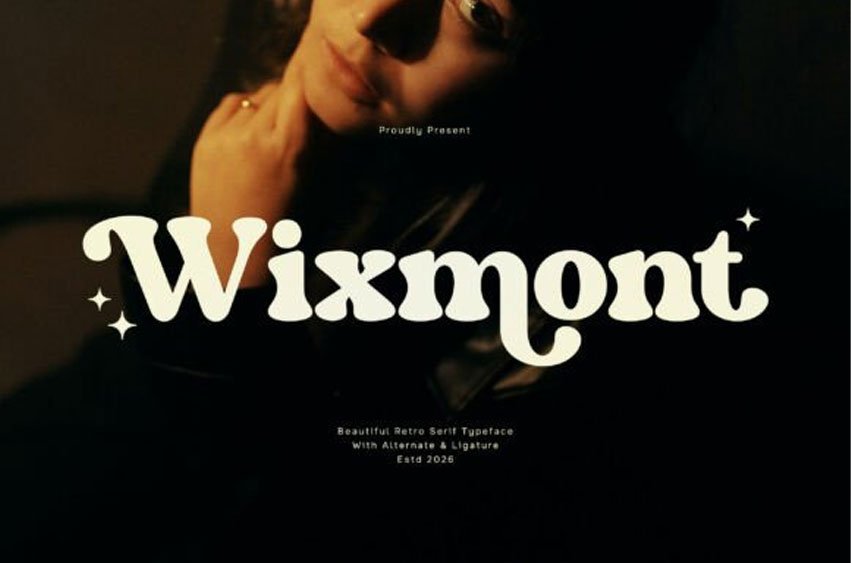
Wixmont Font is a beautiful retro serif font designed to capture the charm of vintage typography with a refined and stylish touch. Featuring distinctive serif details, smooth curves, and balanced letterforms, Wixmont creates a warm and visually appealing typographic style.
Inspired by classic retro aesthetics, this font blends nostalgic character with a clean and modern structure, making it both expressive and versatile. Its elegant shapes and unique personality allow designs to stand out while maintaining clarity and readability.